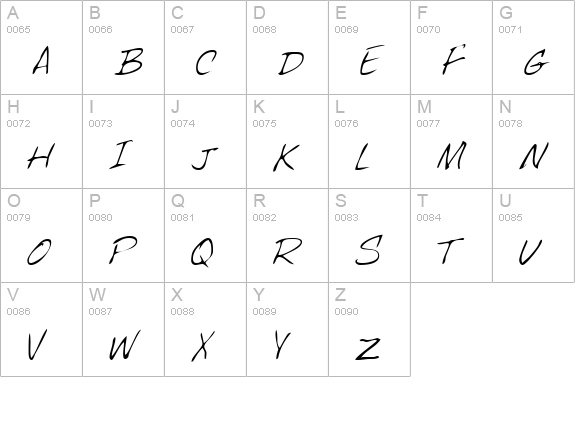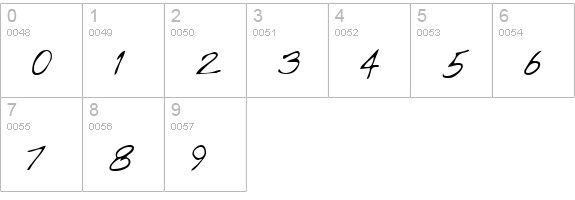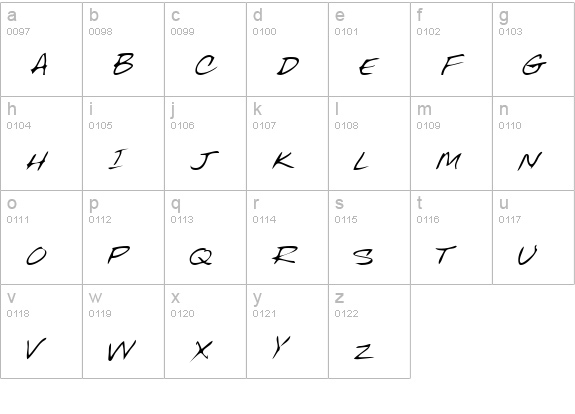
FentonsHand Regular Font Details
FentonsHand Regular is the standard, neutral variant in the FentonsHand typeface family \xE2\x80\x94 well suited to general body text, paragraphs, and standard typographic work.
FentonsHand Regular font is a charming and elegant typeface perfect for adding a touch of sophistication to your designs. With its smooth curves and graceful strokes, this font exudes a sense of class and refinement. Whether you're creating invitations, logos, or branding materials, FentonsHand Regular will elevate your projects to the next level. And the best part? FentonsHand Regular is completely free to download at FontsMarket.com. That's right, you can enhance your designs with this beautiful font without spending a penny. So why wait? Download FentonsHand Regular today and let your creativity soar!